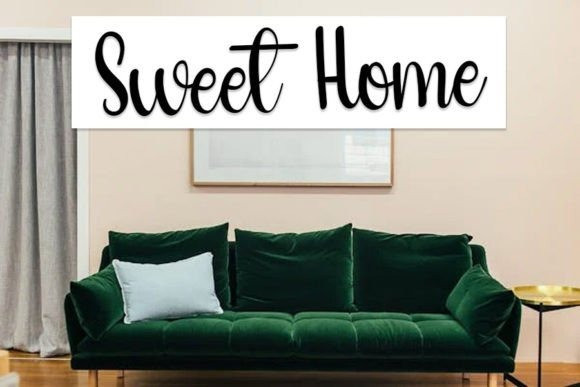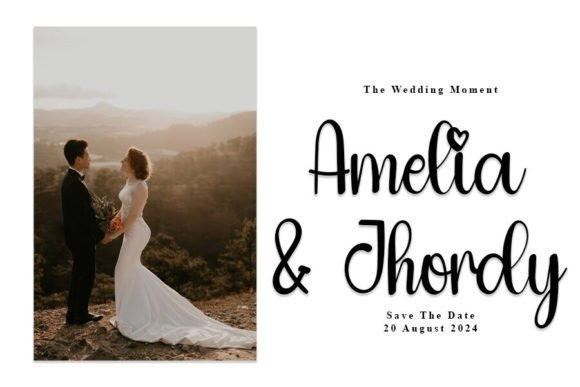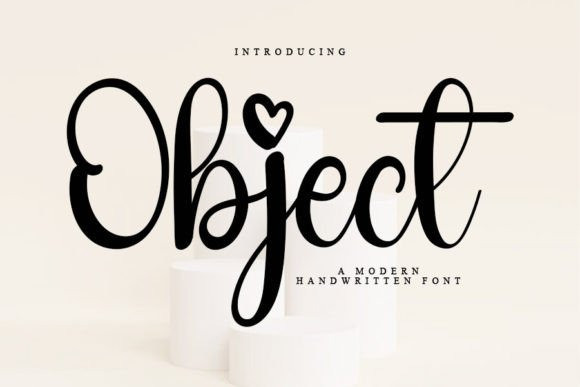
Object Script Font
Object Script Font is a stylish handwritten script font exuding elegance and charm. Its fluid strokes and natural flow create a captivating, sophisticated look. Perfect for adding a personal touch to invitations, branding, or social media, this font brings a sense of warmth and creativity to any design.